Kilotype
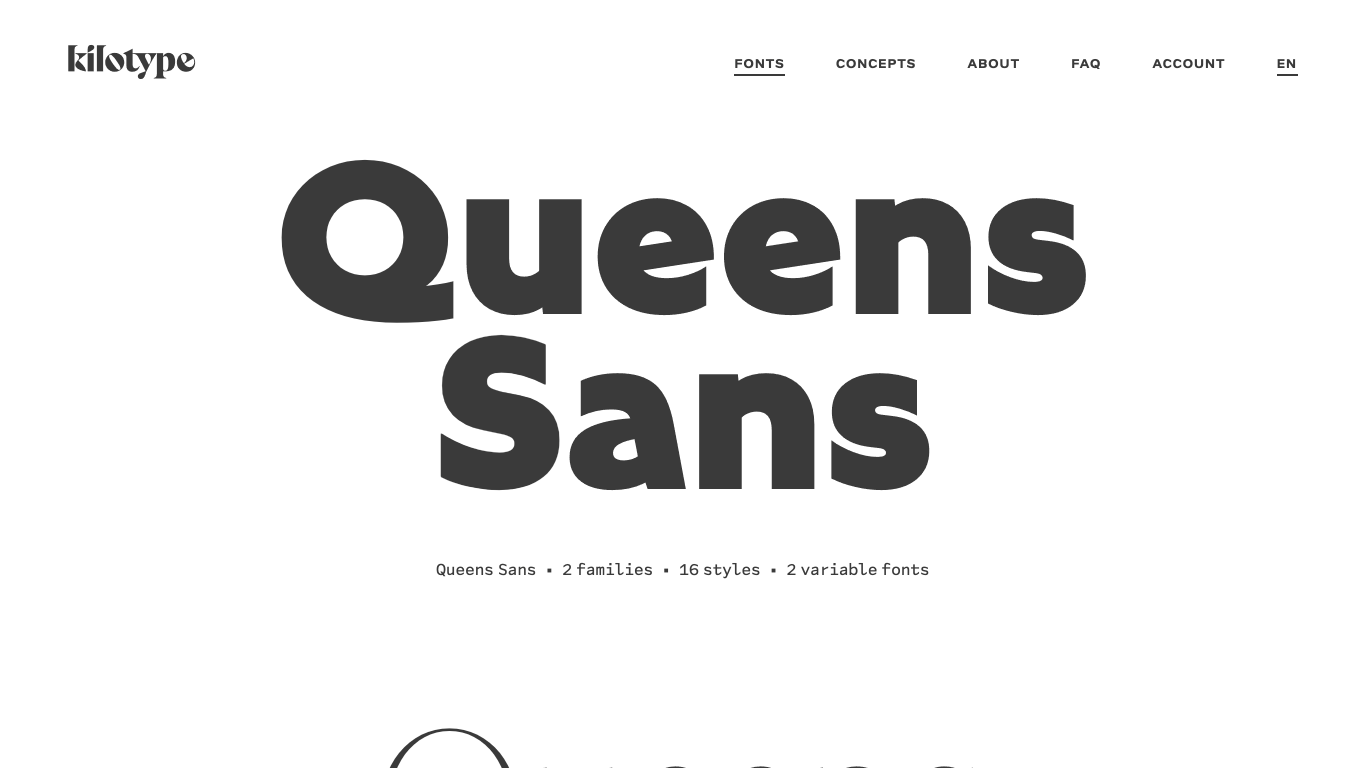
Germany
2017
Kilotype is an independent type foundry based in Harxheim, Germany, founded in 2017 by type designers William Montrose and Selma Losch. The foundry specializes in both bespoke type design and a self-distributed catalog of commercial fonts.Notable typefaces include Frequenz, Sequenz, Oldschool Grotesk, and Charlottenburg—each blending contemporary flair with historical roots. Kilotype’s work has appeared in projects for Seoul Philharmonic, Deutsche Kinemathek, and Dua Lipa’s “Love Again.”